In the world of modern design, using the best charming handwritten font is an effective way to enhance a design’s visual appeal. With its lively, personal, and memorable feel, combined with natural handwriting-inspired characters, this style has become a popular choice for various design needs, including branding, logos, packaging, and wedding invitations.
Charming handwritten fonts do not only appear artistic but also help create a stronger emotional connection to the audience. Nowadays, many brands and content creators choose handwritten fonts to strengthen their visual identity and enhance the unique and aesthetic values, making sure they stand out in this competitive era. The flowy, stylish, and expressive letterforms make a design appear more premium without losing readability.
If you are looking for the best charming handwritten font for branding and aesthetic designs, you are in the right place. This article will help you discover attractive, modern, and versatile font recommendations that are easy to use for a wide range of creative projects.
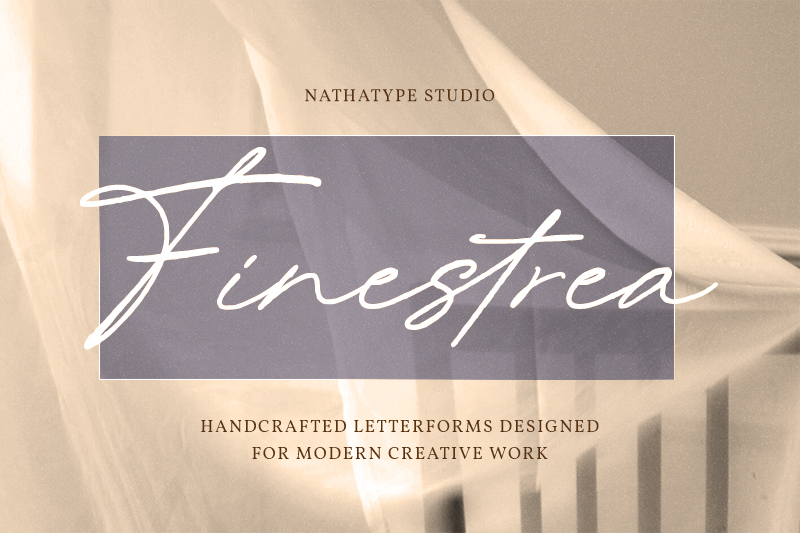
Finestrea is one of the best charming handwritten font styles, with its modern calligraphic look and artistic natural touches, making it perfect for supporting various creative design needs. This font offers smooth letter curves and lines as well as consistent cursive handwriting, ensuring a more harmonious, luxurious, and personal vibe. Finestrea is complete with alternate and ligature features, creating expressive and stylish variations perfect for branding, logos, invitations, and social media.
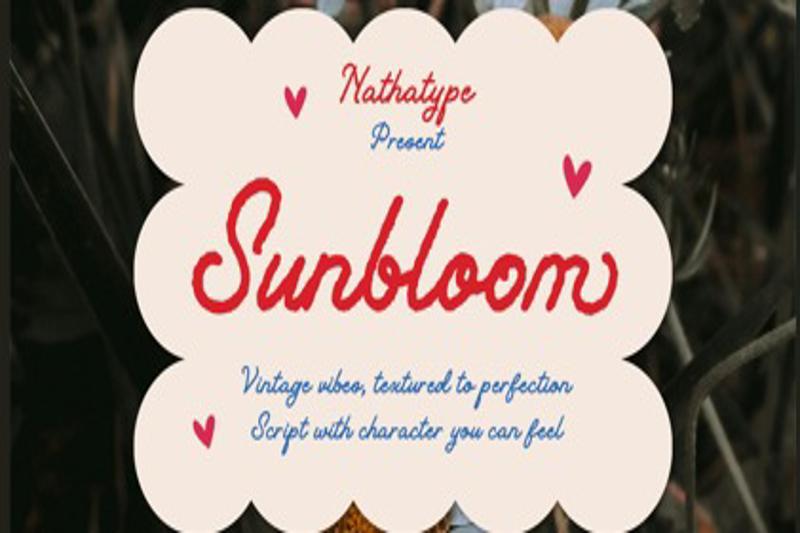
Inspired by classic signage styles and characterful handmade typography, Sunbloom comes as an elegant textured script font with a natural and modern handwriting style. The letter curves are smooth with a slightly rough texture detail, balancing the authentic vintage feel in the overall appearance. Sunbloom works perfectly for branding, packaging, posters, and social media. Additionally, this font features ligatures and stylistic sets that create unique, expressive, and appealing typography to strengthen the design character.
Roselife offers a smooth, artistic, and whimsical handwritten character, combining an elegant nuance with a lovely, appealing handwriting touch. This font has a flowing cursive form, so each letter is connected seamlessly and beautifully.
This font is ideal for branding, wedding invitations, logos, and eye-catching social media content. Roselife is a top pick for the best charming handwritten font because it has ligatures and style sets that add a distinct and expressive variation while being professional and visually appealing.
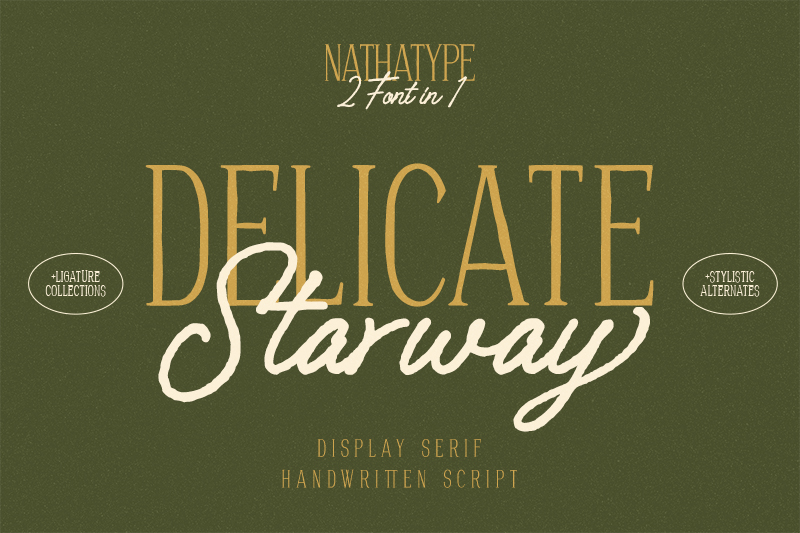
Delicate Starway is a font duo that combines modern minimalism and a natural handwriting style, creating a visual balance that is both exquisite and full of character. The mixture of a thin and clean uppercase-styled display serif and smooth handwritten script provides a balanced contrast that conveys both professionalism and charm. Delicate Startway is one of the best charming handwritten font styles for social media, branding, logos, and other projects that require a modern yet creative feel.
The next recommendation is Meadow Anthem, an elegant script font with artistic and expressive handwriting character. This font has a flowing structure with an obvious stroke contrast, creating rhythmic typography that is perfect for sophisticated designs with a modern, aesthetic nuance. Meadow Anthem is complete with ligatures and stylistic sets that add more to the visual appeal of the font, making it more enhanced while remaining professional.
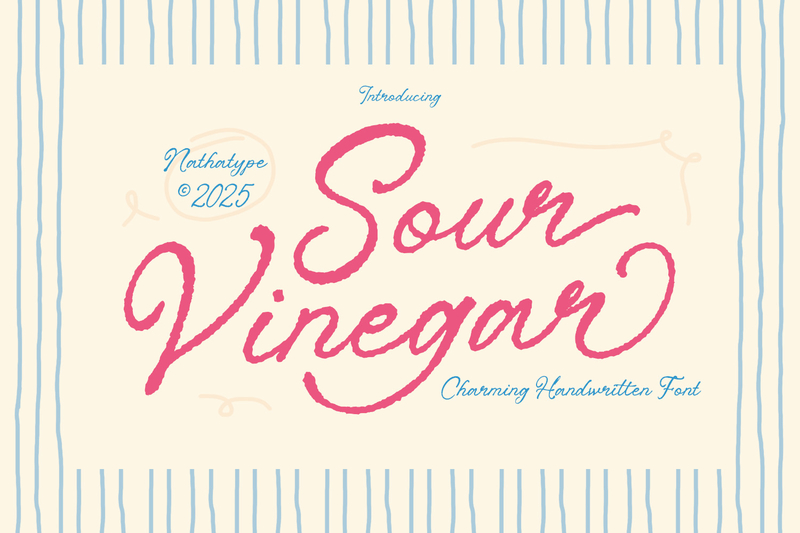
Sour Vinegar features a naturally flowing handwritten cursive style with a sweet, elegant, and expressive feel that resembles genuine handwriting. As one of the best charming handwritten font styles, it is designed with connected letters, low-contrast strokes, and subtle irregularities that create an authentic and artistic impression. In addition, its beautiful ligatures and swash features enhance its visual appeal, making it a perfect choice for branding, logos, product packaging, and invitations that aim to feel more personal and captivating.
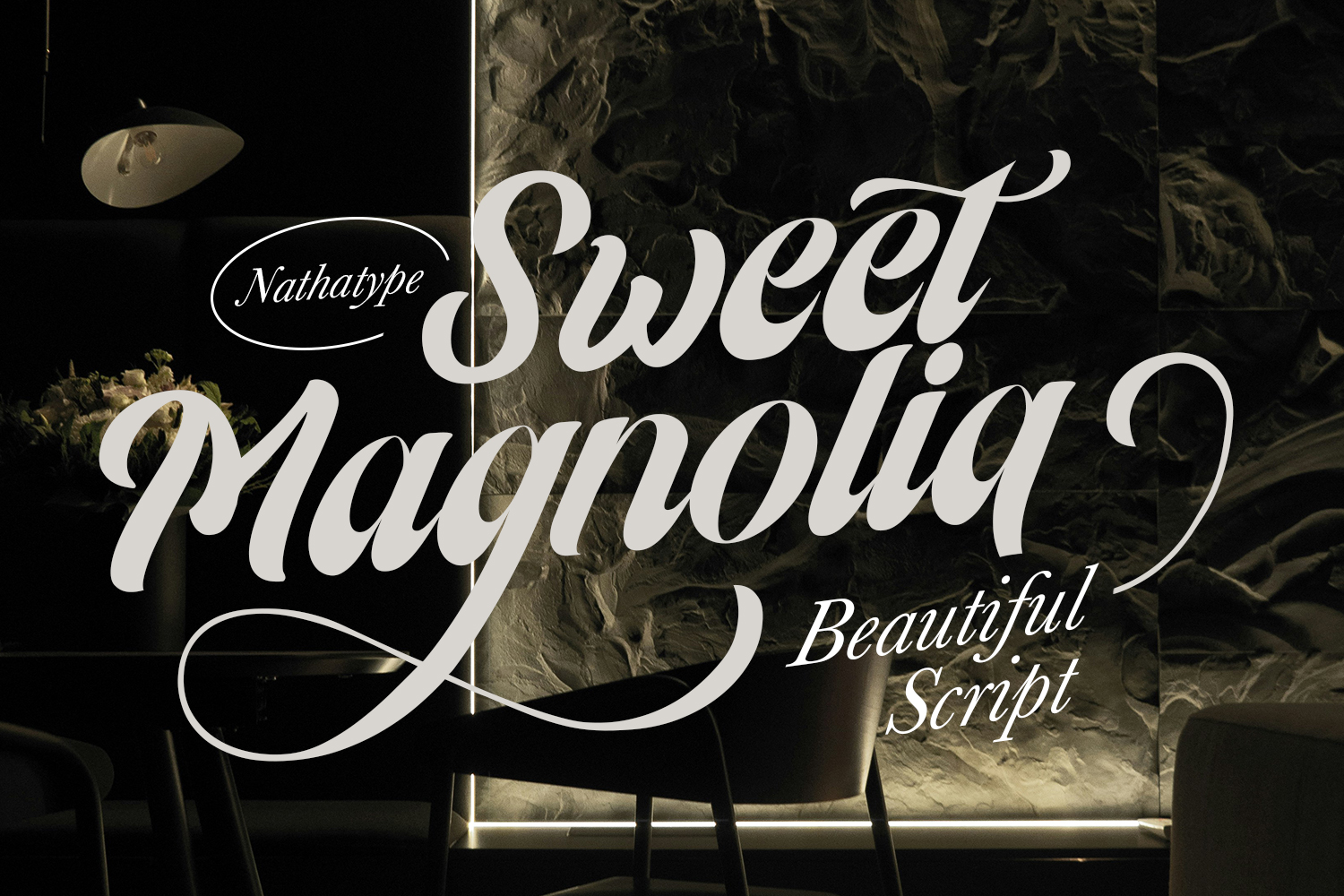
Sweet Magnolia offers an elegant script style with smooth, connecting letter flows, creating a sense of luxury, grace, and class. This font works perfectly for branding, logos, invitations, and product packaging with a harmonious, smooth, and elegant look. Furthermore, its bold and elegant appearance is able to give an artistic and sophisticated touch to any designs.
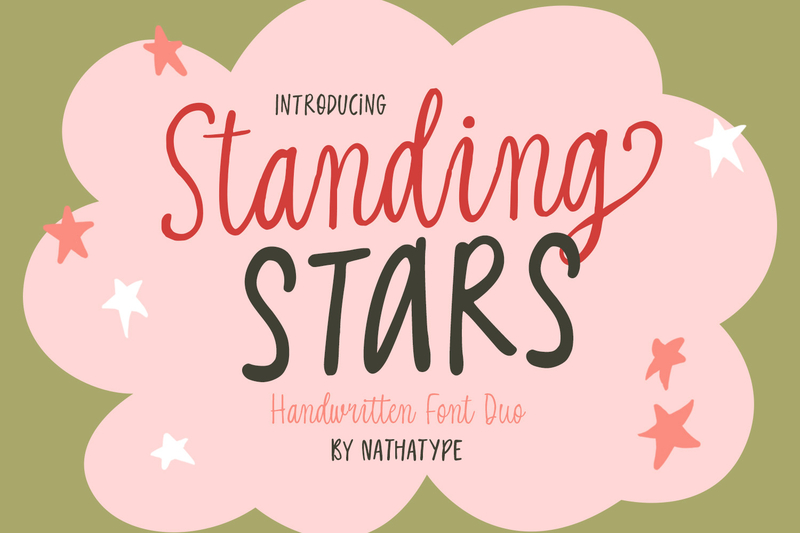
Standing Stars presents a versatile and modern handwritten font duo with a harmonious, creative, warm, and appealing visual appearance. This font combines a natural handwritten script with a light and clean sans serif, creating a sweet, playful, and charming design look. Complete with ligatures and stylistic sets, Standing Stars is flexible for branding, posters, product packaging, and variative, aesthetic social media design.
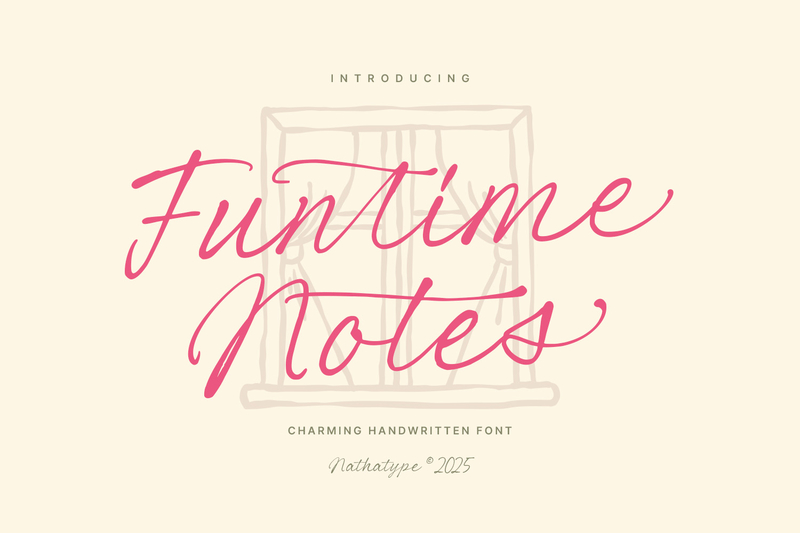
Choosing the right font also plays a crucial role in building identity and conveying a stronger impression to the audience. Therefore, explore the various recommendations for the best charming handwritten font styles above and find the font that best suits the concept and needs of your creative project.